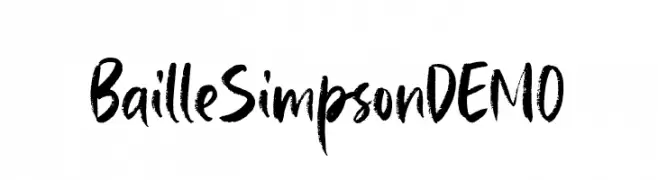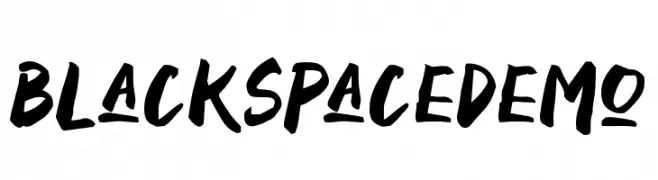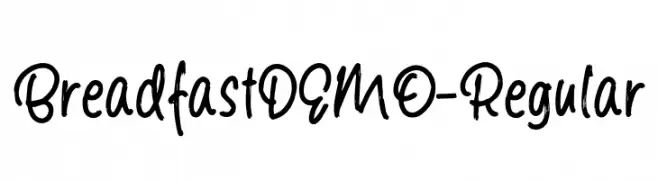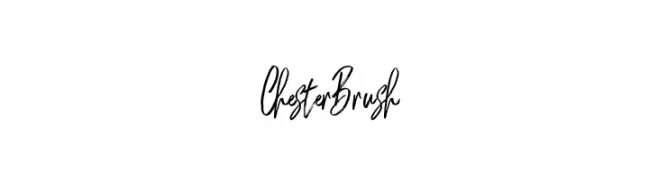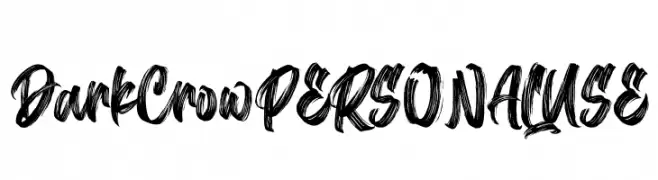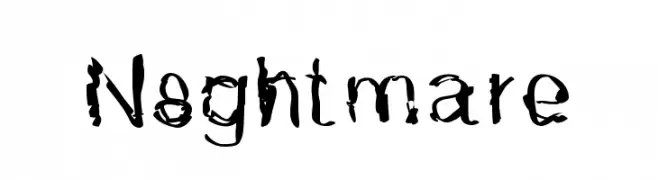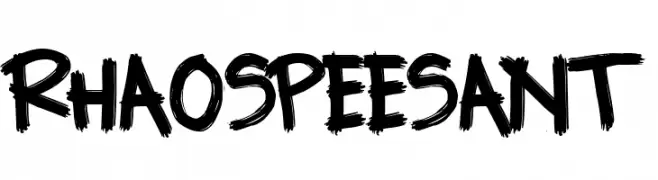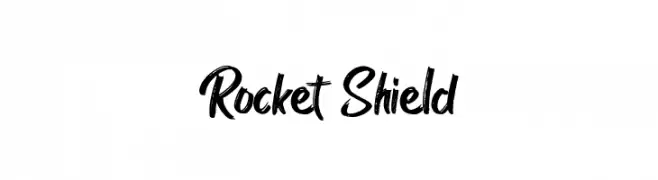
A bold, expressive font with a hand-painted, brush-like appearance.
A bold, brush-style font with expressive, hand-painted strokes.
A bold and expressive script font with a hand-painted look.
A bold, hand-painted style font with an energetic and artistic flair.
A bold, hand-painted style font with dynamic strokes and a unique blend of expressive letters and classic numerals.
A distressed, chaotic font with a grungy, painted appearance.
A dynamic brush script font with expressive, fluid strokes and a hand-painted texture.
A bold, dynamic brush script font with expressive, hand-painted strokes.
A bold, expressive brush-style font with dynamic strokes and a hand-painted look.
A dynamic brush script font with fluid, hand-painted strokes.